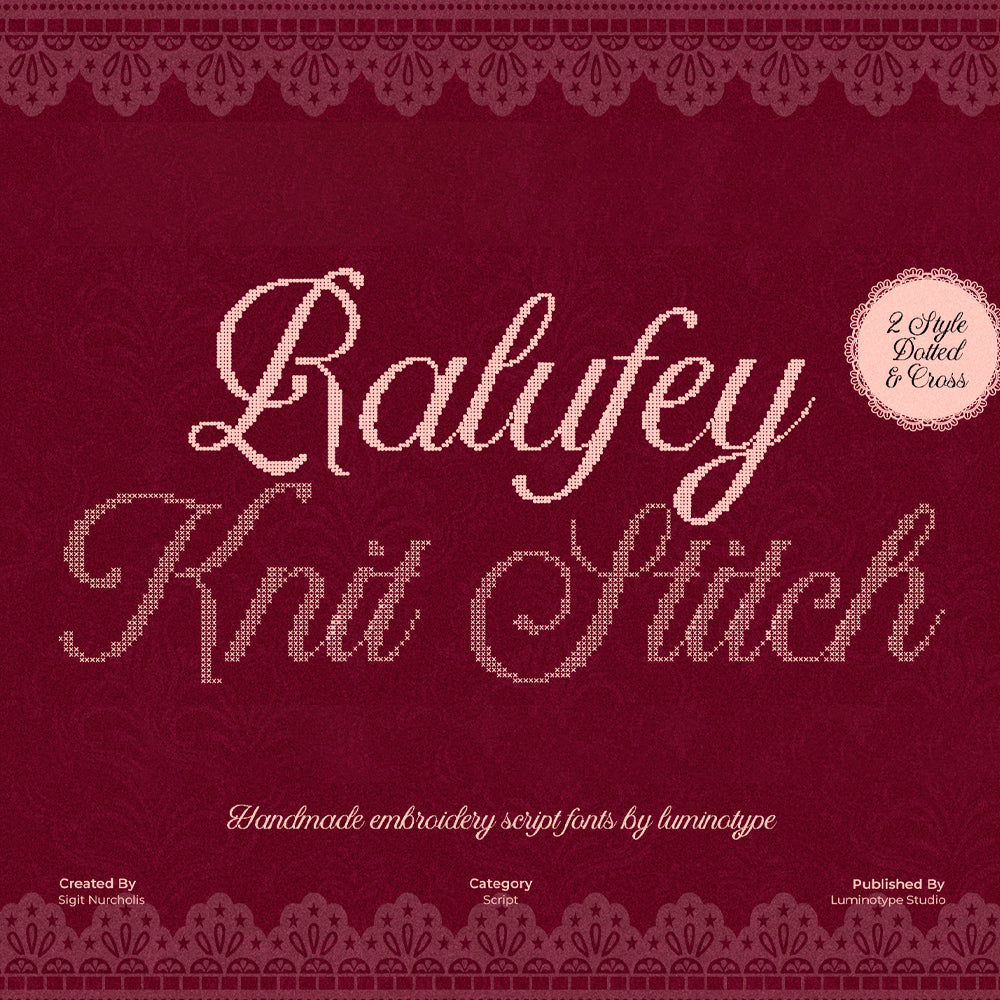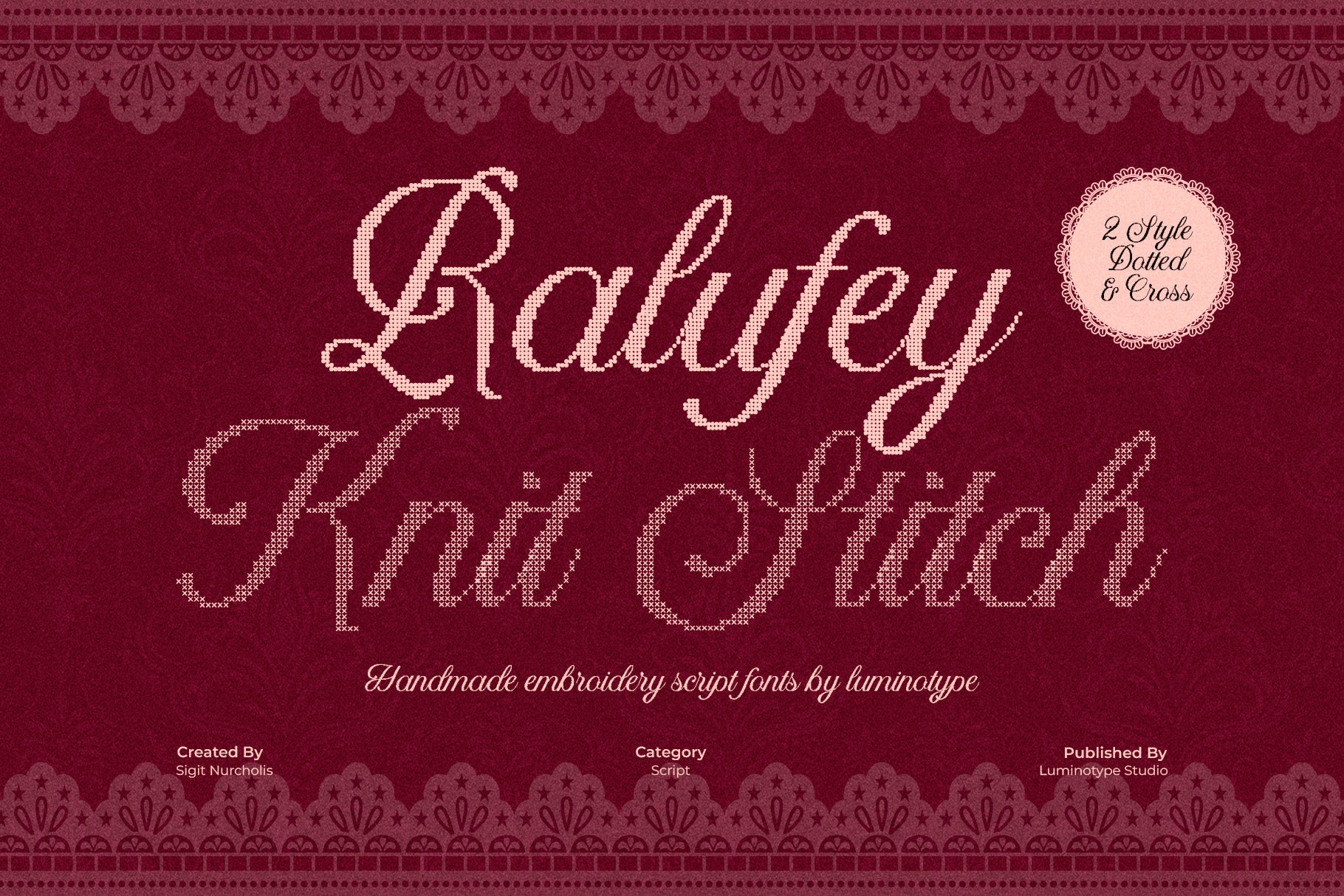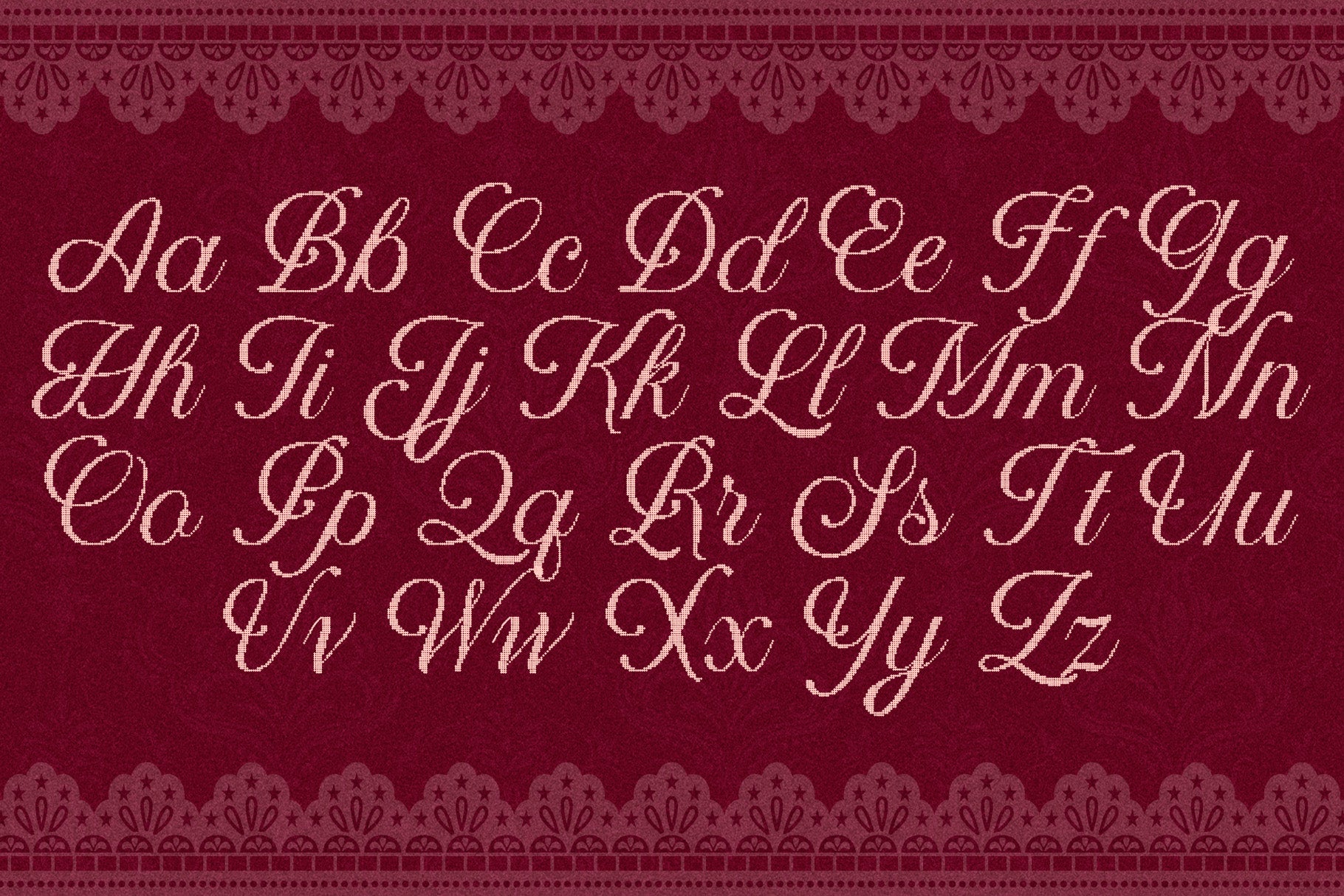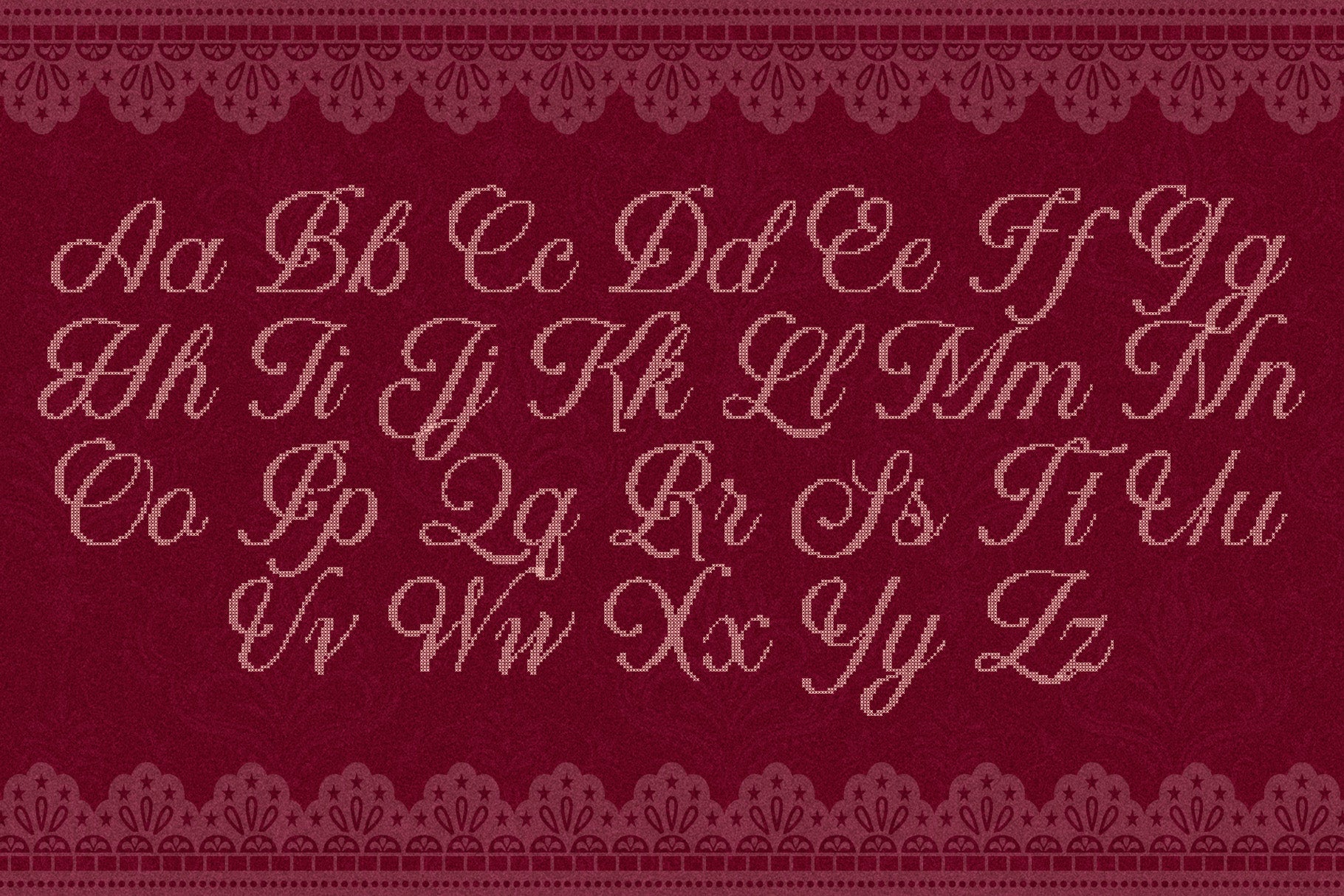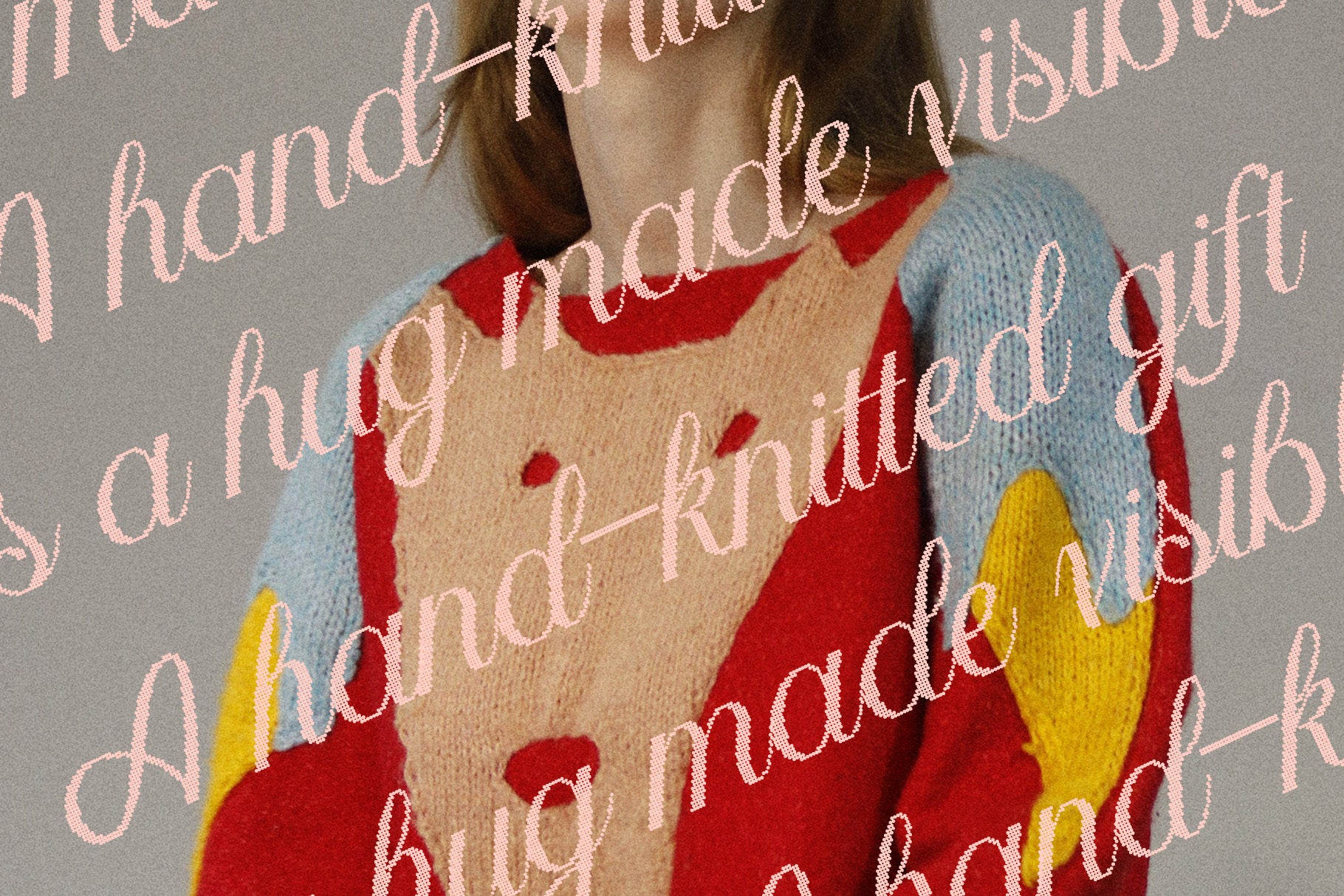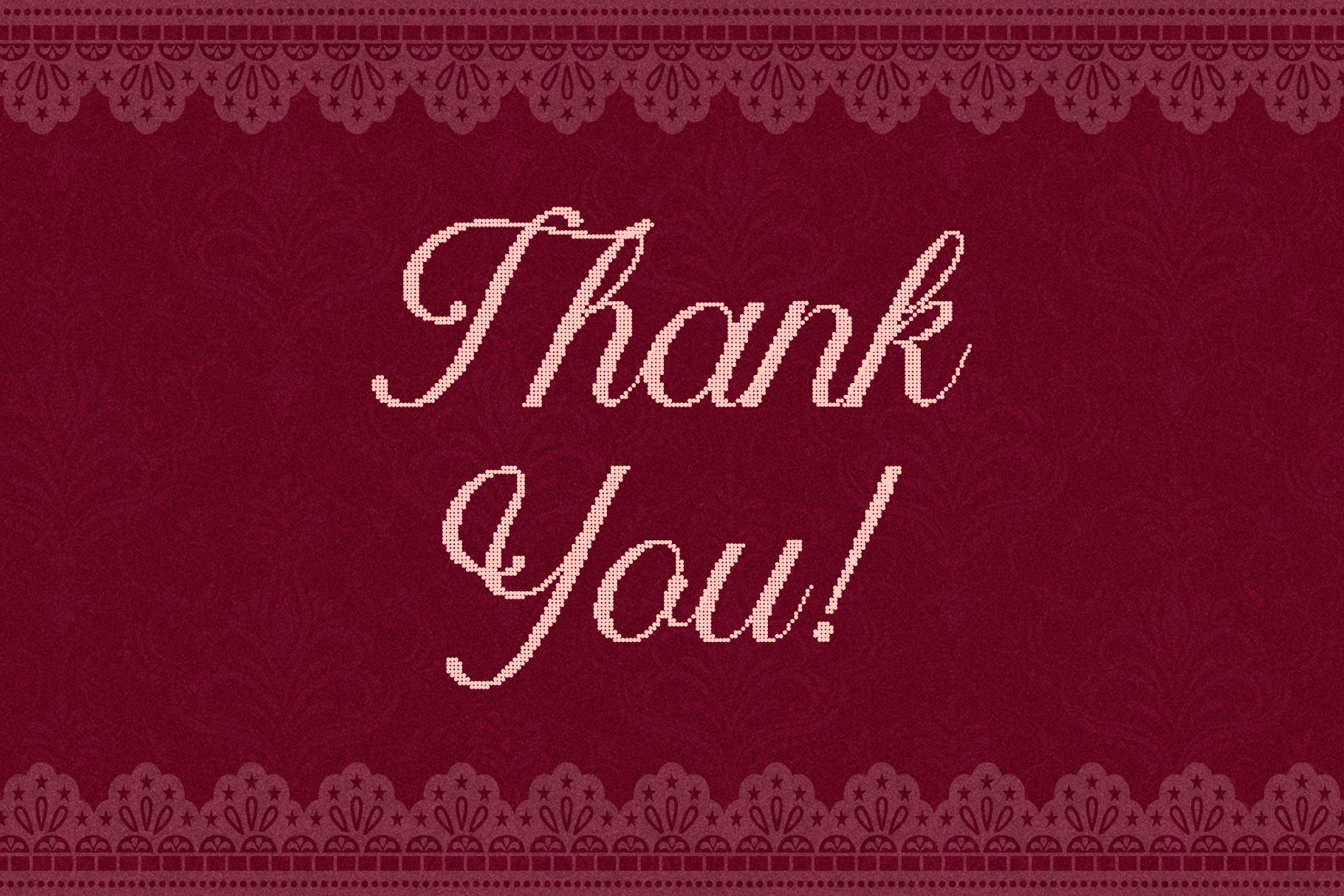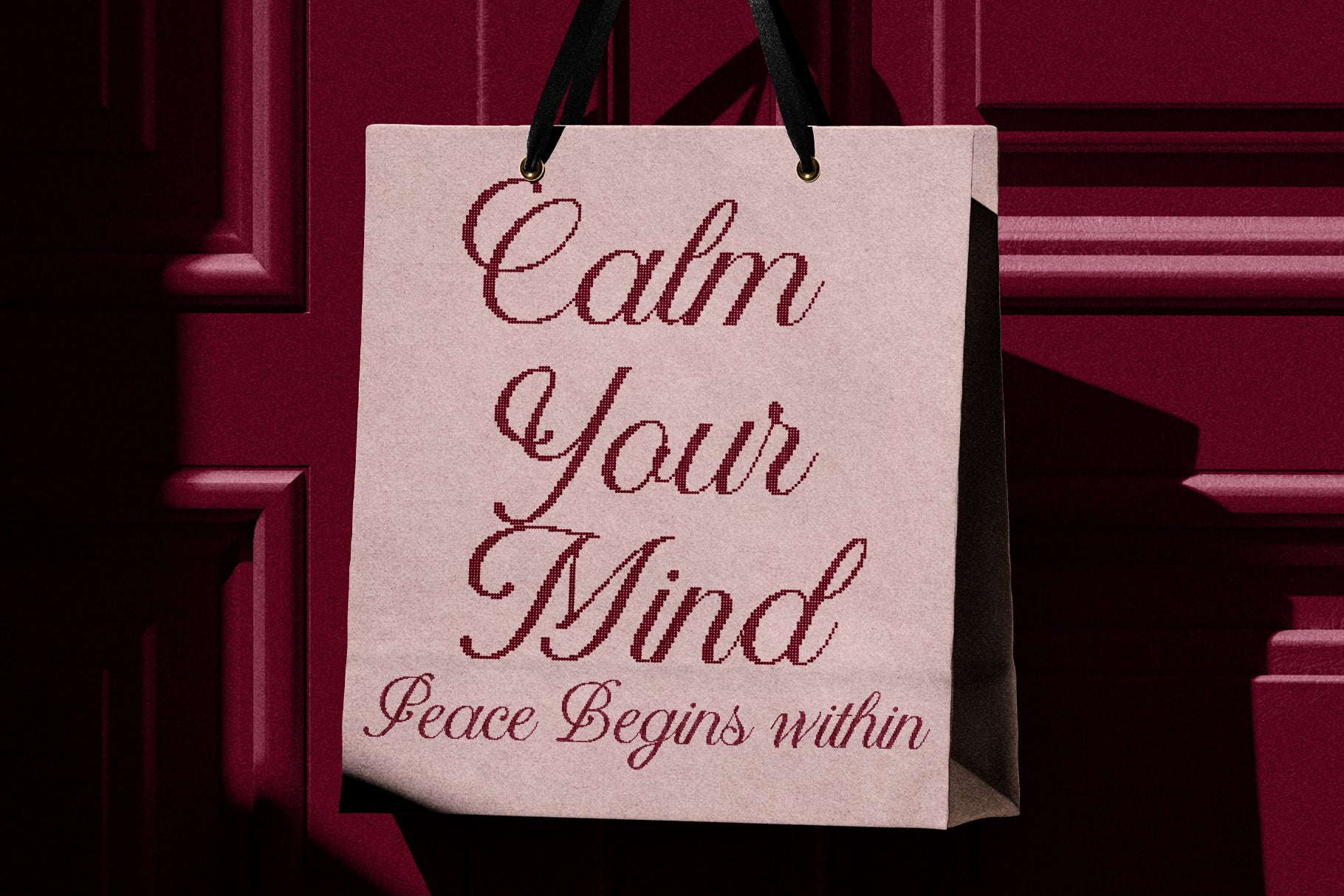
LT Ralufey - Embroidery Script Font
Luminotype
Bring a touch of warm, handcrafted charm to your creative projects with Ralufey Knit Stitch. This unique handmade embroidery script font perfectly captures the cozy, nostalgic feel of traditional knitting and cross-stitch crafts. Designed with intricate detailing, Ralufey comes in two distinct and highly detailed styles—Dotted and Cross—allowing you to choose the perfect authentic stitched texture for your designs. Whether you are aiming for a rustic, homey vibe or a highly creative DIY aesthetic, this font seamlessly blends the flowing elegance of a cursive script with the tactile, comforting impression of physical needlework.
Best Used In: Ralufey Knit Stitch is the perfect choice for craft-based branding, apparel design (such as vintage sweaters or tote bags), boutique packaging, DIY project covers, greeting cards, quote posters, and customized handmade product labels.
Uppercase and Lowercase characters
Numerals and Punctuation
2 Unique Styles: Dotted & Cross
Standard Glyphs
The LT Ralufey - Embroidery Script Font is a handmade embroidery script typeface that features two distinct styles—Dotted and Cross. It includes uppercase and lowercase characters, numerals, punctuation, standard glyphs, and multilingual support, available in OTF, TTF, WOFF1, and WOFF2 file formats.